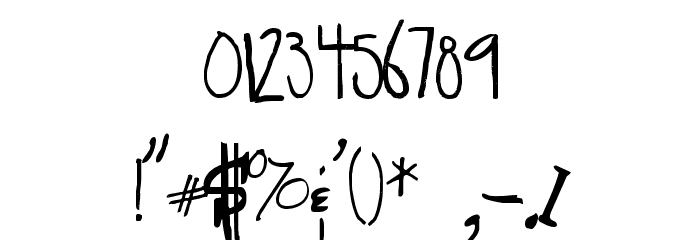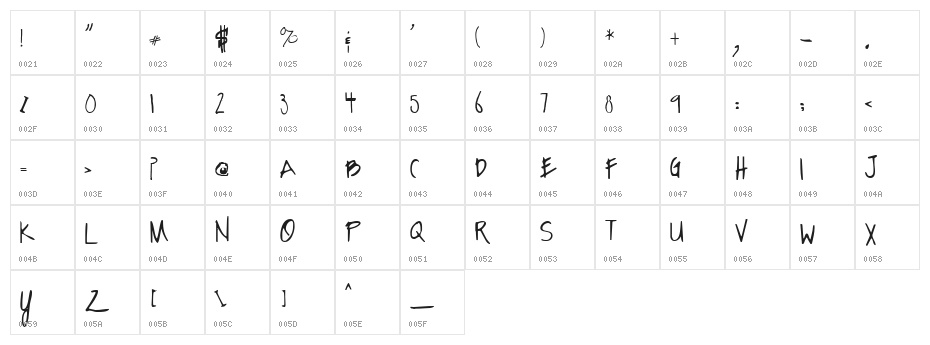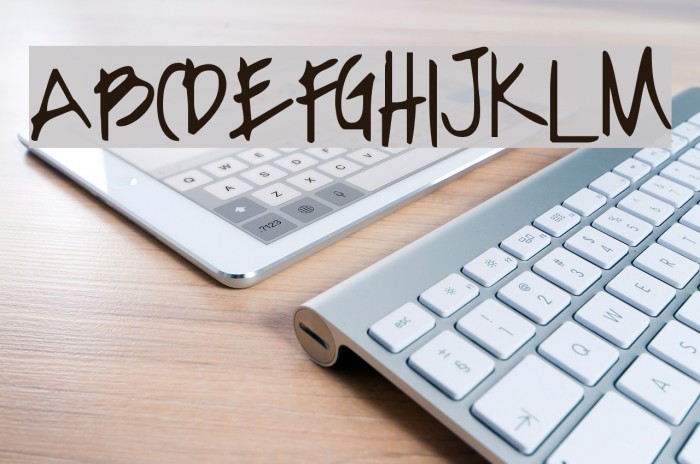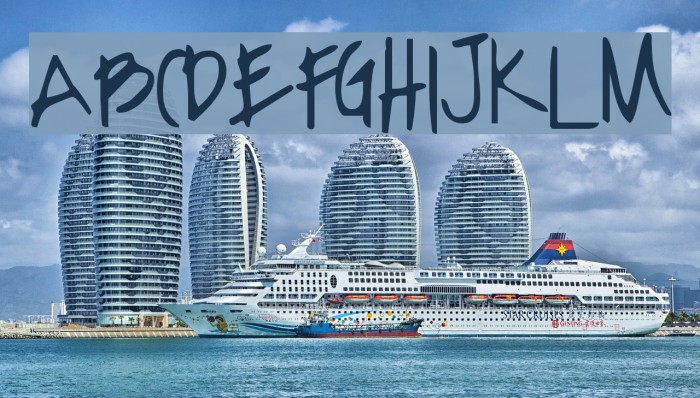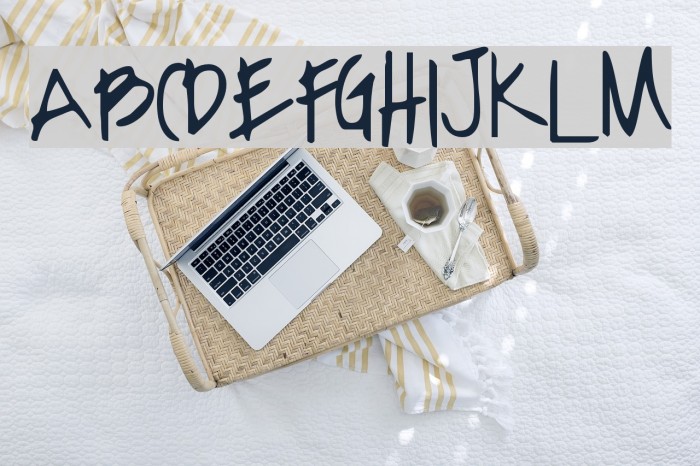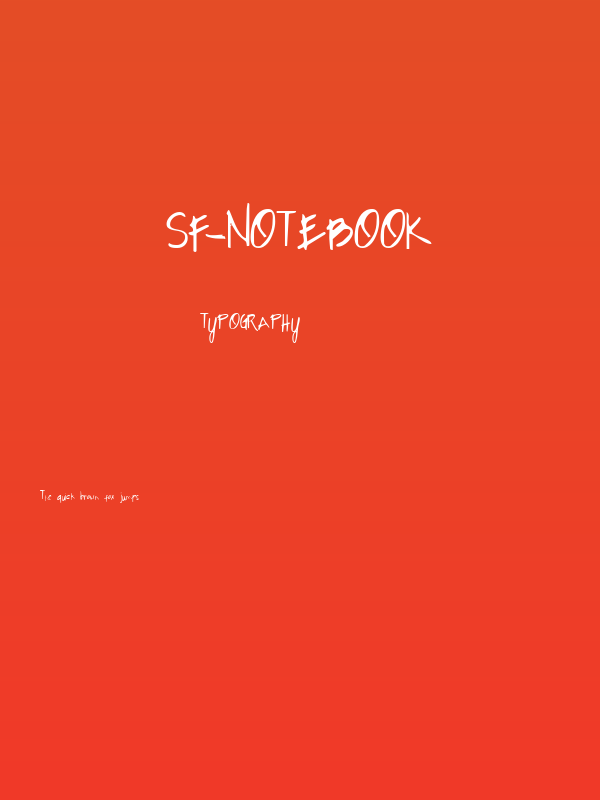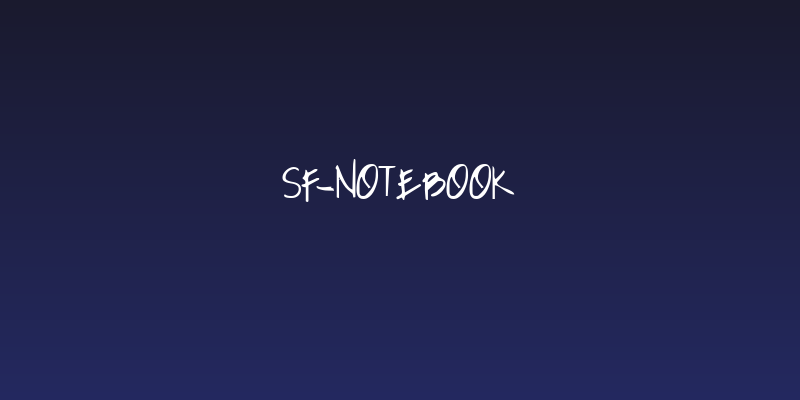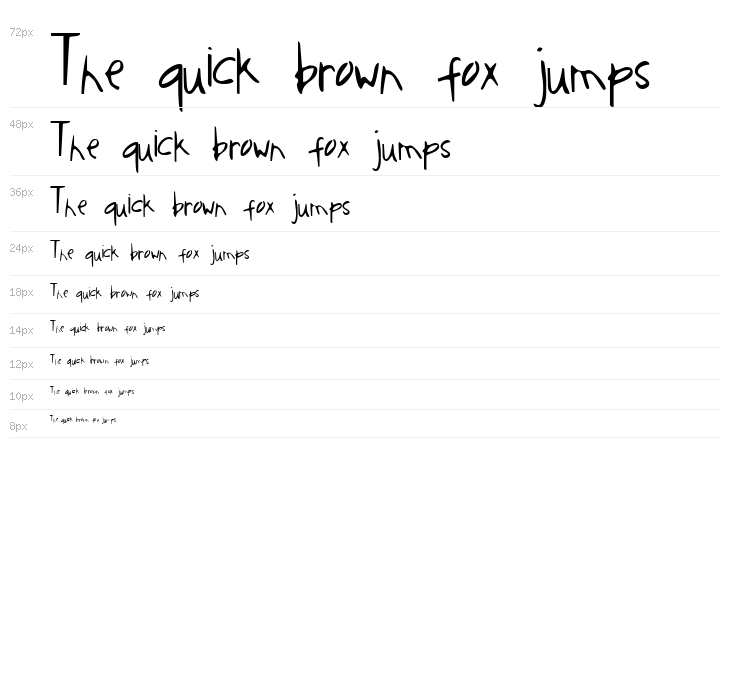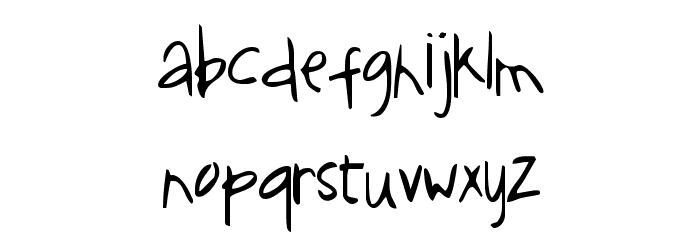
SF-notebook Font
SF-notebook Description
This font exudes a playful and informal vibe, characterized by its hand-drawn, casual appearance. The letters are uneven and slightly tilted, giving it a dynamic and lively feel. The strokes are varied in thickness, adding to the handwritten aesthetic. The uppercase letters are bold and prominent, while the lowercase letters maintain a consistent style, enhancing readability. Numbers and special characters are crafted with the same whimsical touch, making them blend seamlessly with the alphabet. This font is perfect for projects that require a personal, friendly touch.